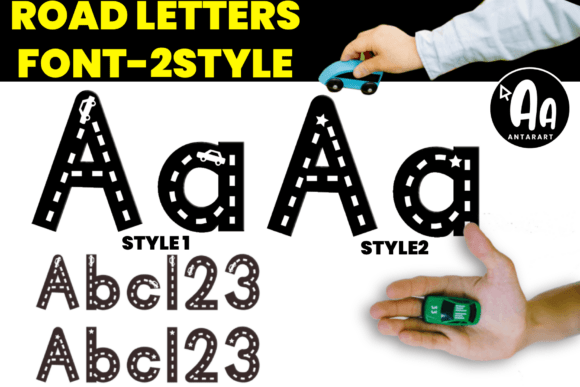
Unlocking Creative Learning with Abcd Ref Alphabet Tracing Road Mats Font
As a creative enthusiast, I’ve always been fascinated by the intersection of design and learning. Recently, while working on a project to create engaging educational materials for preschoolers, I stumbled upon the Abcd Ref Alphabet Tracing Road Mats Font. This innovative font is designed to make handwriting practice a fun, interactive experience for young learners. In this article, I’ll share my journey of discovery with this unique font, its features, and how to make the most of it in various design platforms.
A Personal Design Moment: The Challenge of Engaging Young Learners
I recall a particular design project where I was tasked with creating a set of alphabet tracing worksheets for a kindergarten class. The goal was to make learning fun and interactive while strengthening fine motor skills. I knew I had to think outside the box (or alphabet, in this case!). That’s when I discovered the Abcd Ref Alphabet Tracing Road Mats Font. This font is specifically designed to help emergent writers learn proper letter formation and directionality in a playful way.
Here’s what I love about the Abcd Ref Alphabet Tracing Road Mats Font:
- ✨ Interactive Learning: The font includes vehicle icons and star-start markers that guide children on the correct writing direction and starting points.
- ✅ Fine Motor Skills Development: The dotted “road” lines for tracing help children strengthen their fine motor skills, essential for handwriting.
- 🌈 Playful and Engaging: The design makes learning fun, allowing children to “drive” toy cars along the path or trace with markers.
- 📚 Comprehensive: The package includes printable mats for uppercase, lowercase letters, and numbers, suitable for various educational settings.
Some minor considerations:
- ⚠️ Learning Curve for Parents and Educators: Some adults might need a bit of time to understand the full potential and application of the font.
The Designer Inspiration Behind Abcd Ref Alphabet Tracing Road Mats Font
The Abcd Ref Alphabet Tracing Road Mats Font was inspired by the need for engaging, interactive learning tools. The designer aimed to create a font that not only teaches the alphabet but also develops fine motor skills in a fun, imaginative way. The result is a unique font that combines education with play.
| What age group is the Abcd Ref Alphabet Tracing Road Mats Font suitable for? | Preschool and kindergarten children, typically aged 2-5 years. |
| Is the font available in different styles? | Yes, the font comes in two styles: Car and Star, offering variety for learning sessions. |
The Abcd Ref Alphabet Tracing Road Mats Font is a valuable tool for educators, parents, and designers looking to create engaging, interactive learning materials. By incorporating this font into your educational projects, you’re not just teaching the alphabet; you’re fostering a love for learning and creativity in young minds.